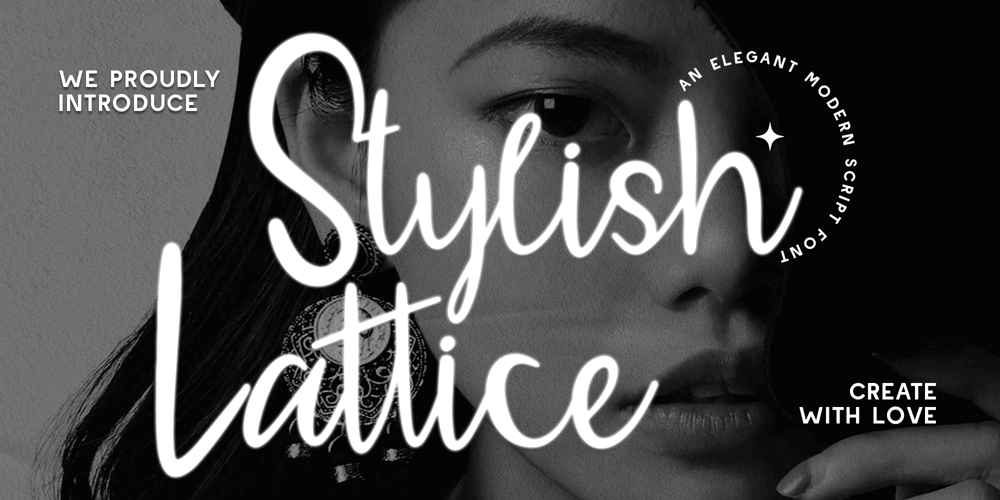
Stylish Lattice Font Family was designed by Gilang Mei Nugraha, Frederik Aristaputra and published by Creatifont Studio. Stylish Lattice contains 1 styles and family package options. Stylish Lattice is a captivating script font that combines elegance with a modern edge. Its flowing, freeform strokes bring an effortless charm to any project, making it ideal for those seeking sophistication with a touch of spontaneity. Perfect for branding, invitations, and high-end editorial designs, Stylish Lattice embodies both grace and versatility, ready to add a dash of refined style wherever it’s used.A SUMMARY OF WHAT’S INCLUDED: Standard Character A-Z, a-z, 0-9, Punctuation & symbols Regular Multilingual Support Alternates and Ligatures Included Works on PC & Mac Simple installation Accessible in Adobe Creative Suite (Ai, Ps, Id, etc.) even work on Microsoft Word. PUA Encoded Characters – Fully accessible without additional design software. 🌟If you come across any issues or notice anything we might have overlooked while using this product, please feel free to reach out to us. We greatly value your feedback as it helps us enhance and refine our products. Thank you!